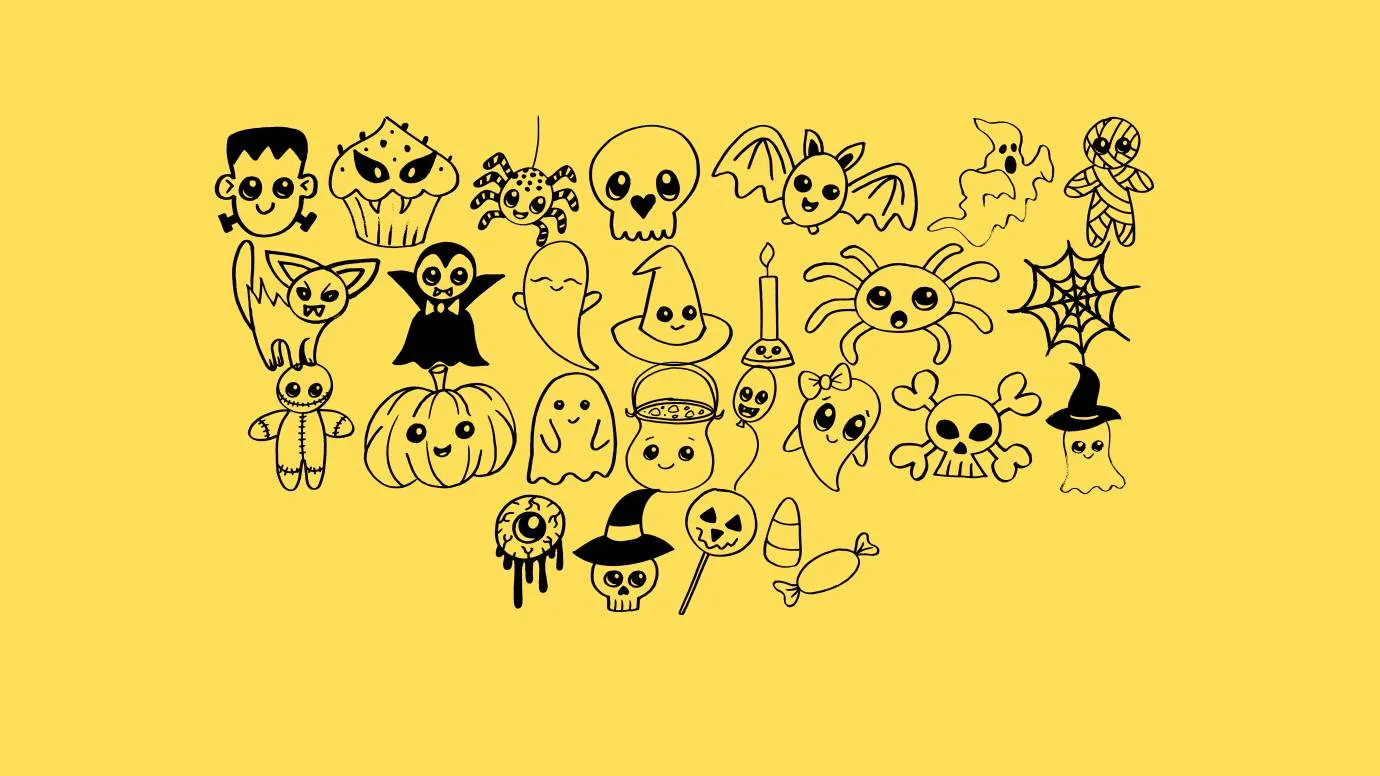
Cute Halloween Drawings Font is a very old and unique typeface. It is a dingbat font that was used by Christians for celebrating their event called Halloween. This unique dingbat font was designed by Jonathan S Haris.
Cute Halloween Drawings Font